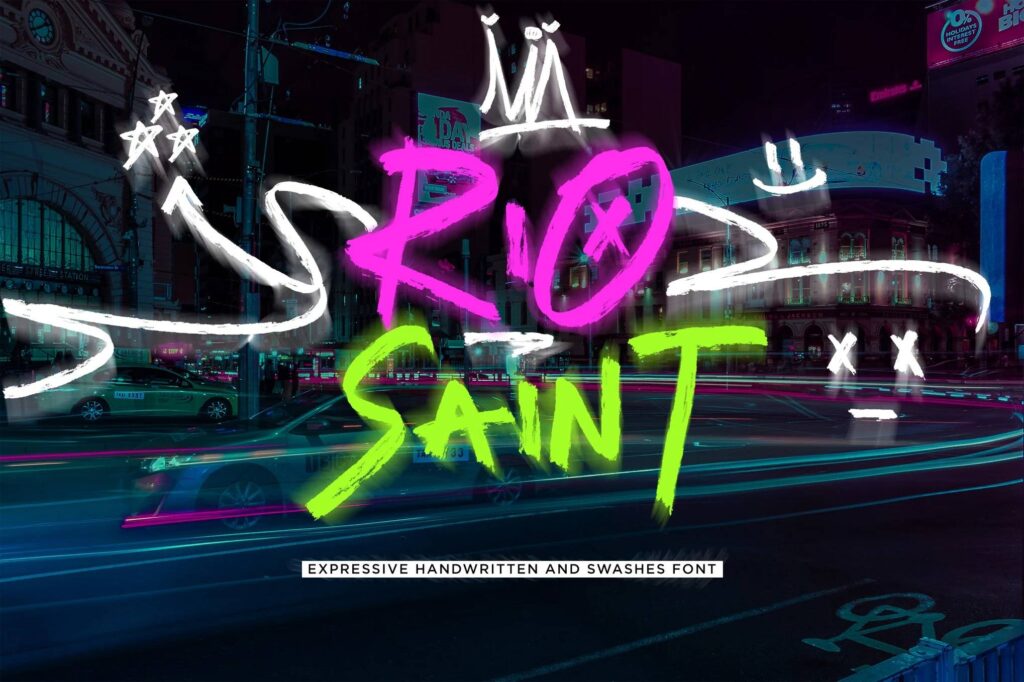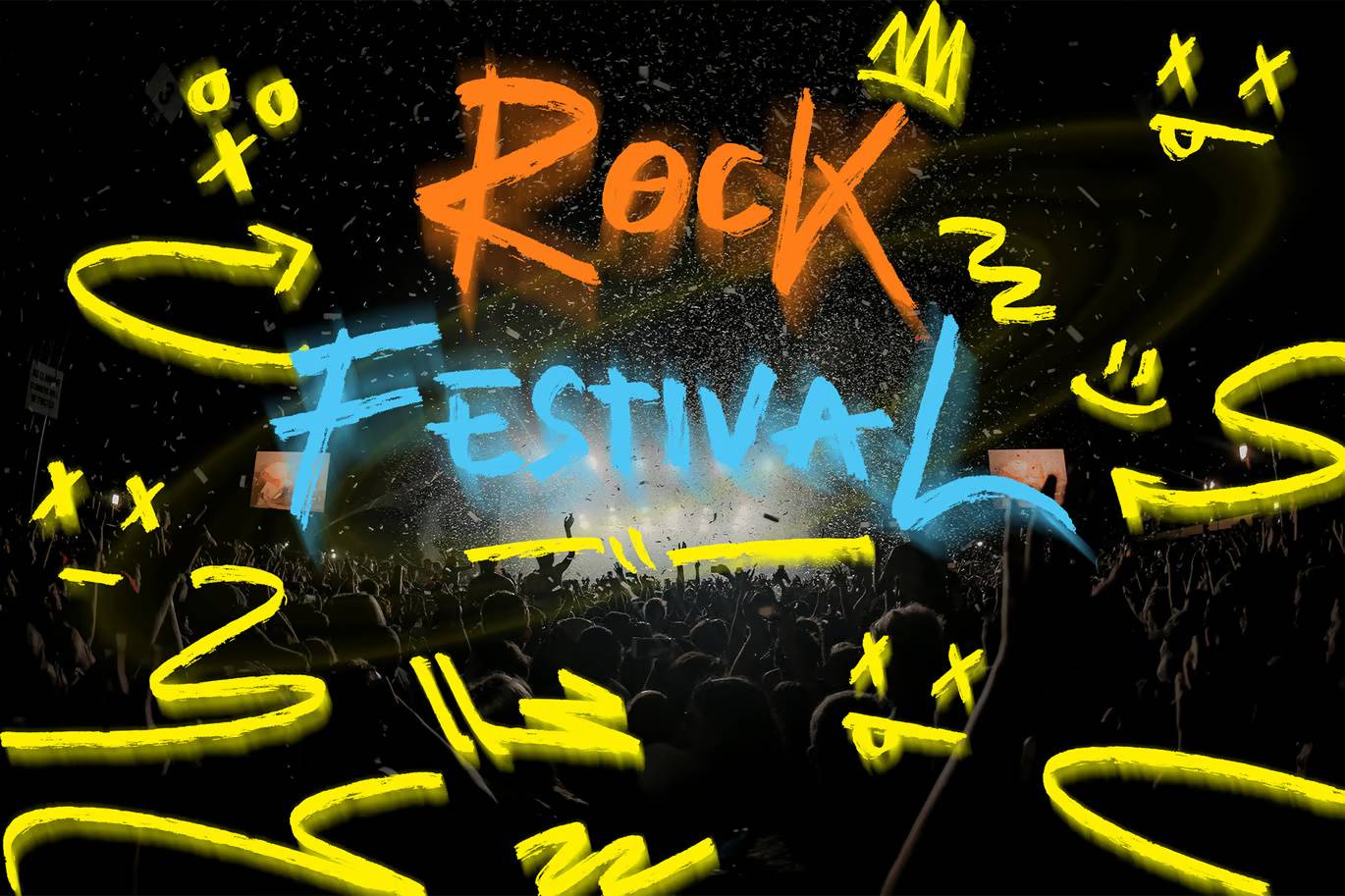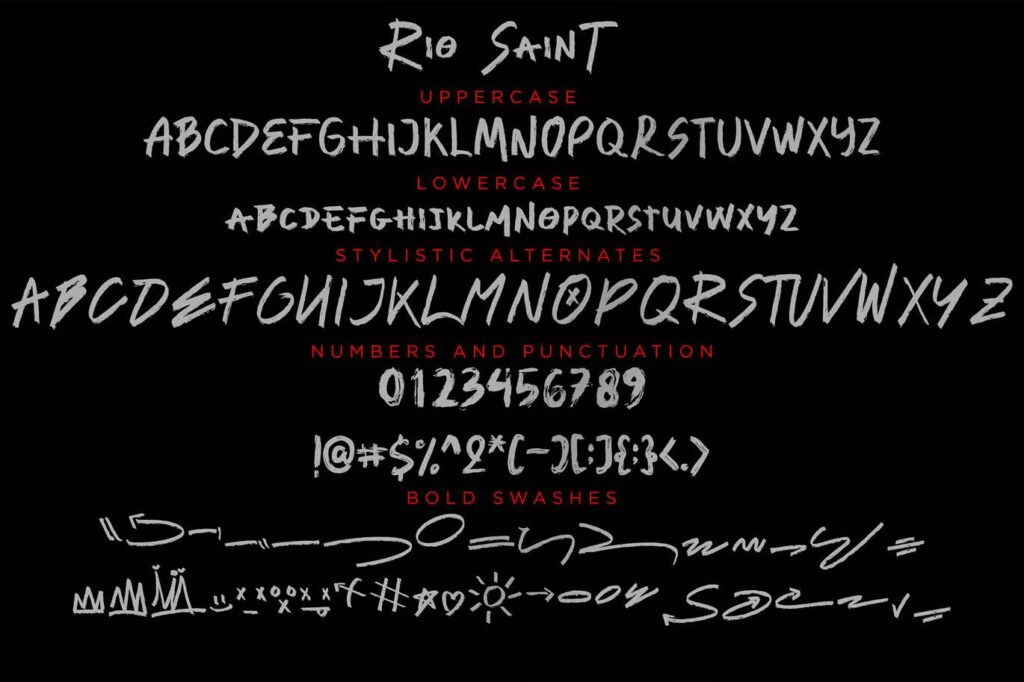
Rio Saint Font
Rio Saint is a bold and expressive brush and swash font crafted for urban, street-style, and hip-hop-themed designs. Featuring raw, hand-painted strokes and dynamic swashes, it captures the essence of street art—perfect for edgy, rebellious projects.
Rio Saint – Expressive Brush and Swash Font